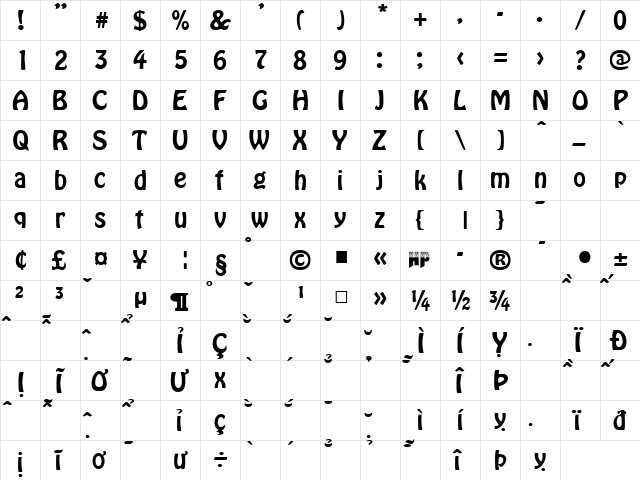
HP-Hobo Regular Font Preview
HP-Hobo Regular
Design Context for HP-Hobo Typeface
HP-Hobo is a composed and adaptable typeface that performs quietly and consistently across a wide range of design contexts.